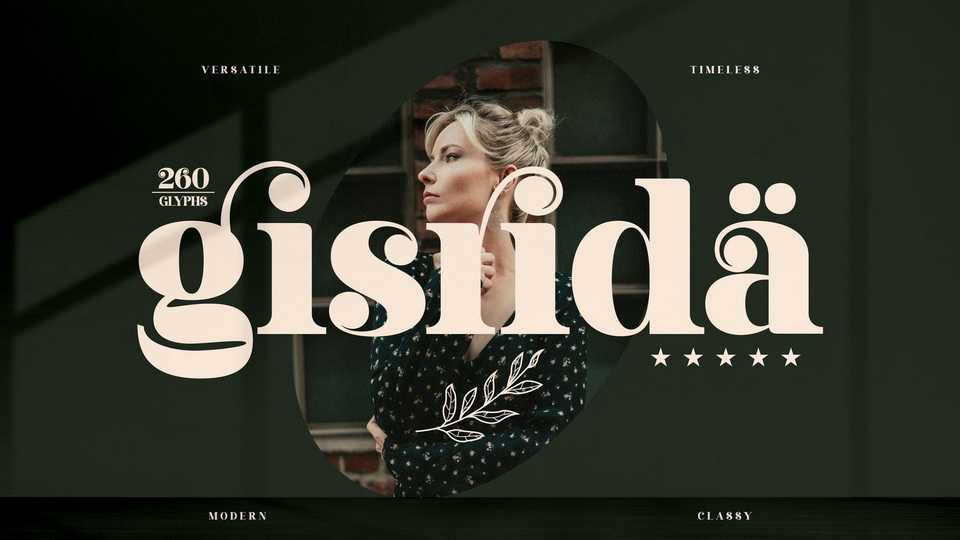
Gisrida Modern Font › Fontesk – Download Grátis
Download Gisrida font, a bold, stylish high contrast serif typeface that has own unique style and modern look. Gisrida font is perfect for an elegant and luxury logo, book or movie title design, fashion brand, magazine, clothes, lettering, quotes, and so much more.